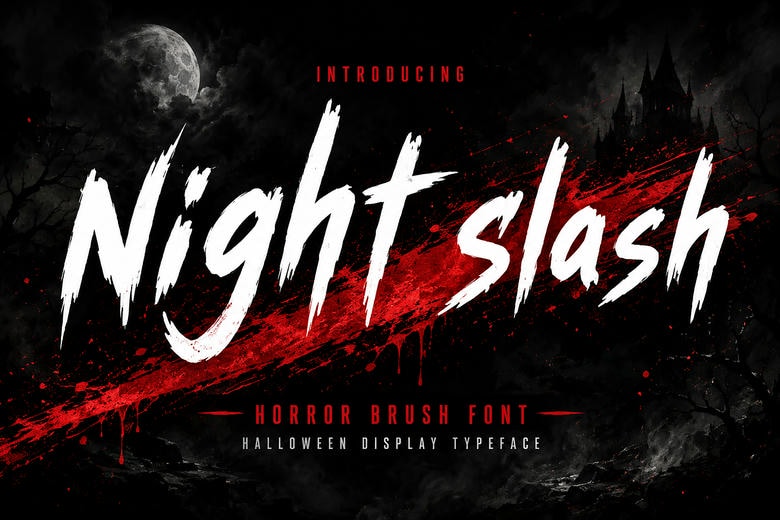
Night Slash Font
Night Slash is a bold horror brush font inspired by slasher movies, haunted forests, Halloween nights, and dark thrillers. Its strong brush strokes, sharp edges, and handcrafted details make it stand out and add both fear and excitement to your designs.
Night Slash works well for horror movie titles, Halloween flyers, game covers, YouTube thumbnails, book covers, merchandise, posters, branding, and spooky social media graphics. Its rough brush texture and bold letters help designers create visuals that are dark, mysterious, and memorable.
If you need a chilling movie poster, a haunted event flyer, or horror-themed merchandise, Night Slash combines fear, drama, and style.
Night Slash Brush Script Font